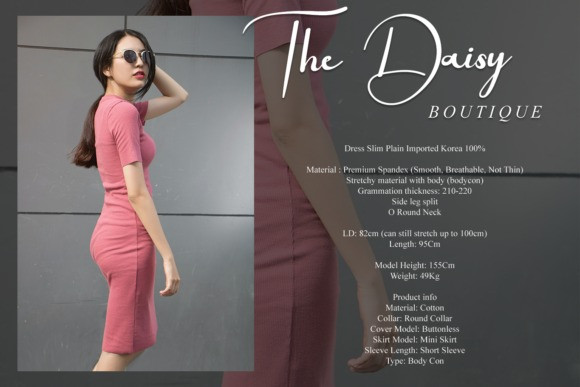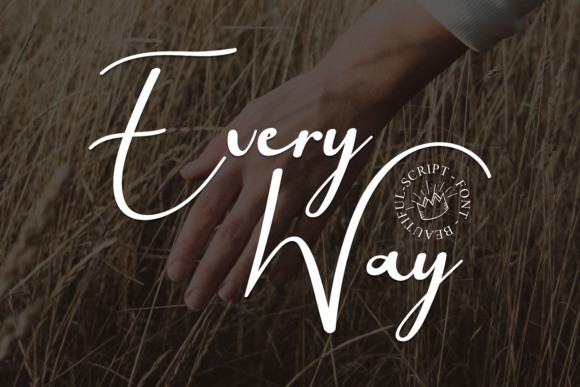
Every Way Font
Every Way Script Font is a flowing handwritten font, described by an elegant touch, perfect for your favorite projects. Fall in love with its incredibly distinct and timeless style and use it to create spectacular designs!